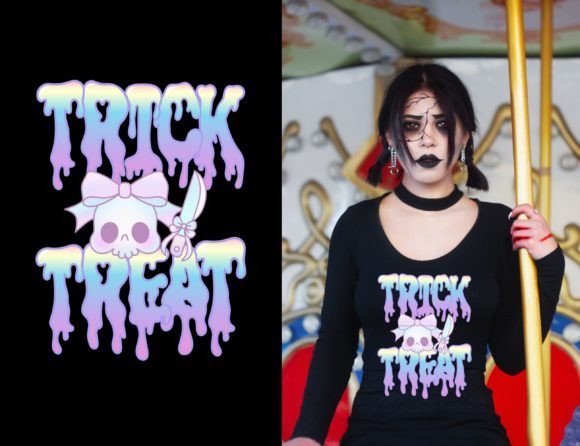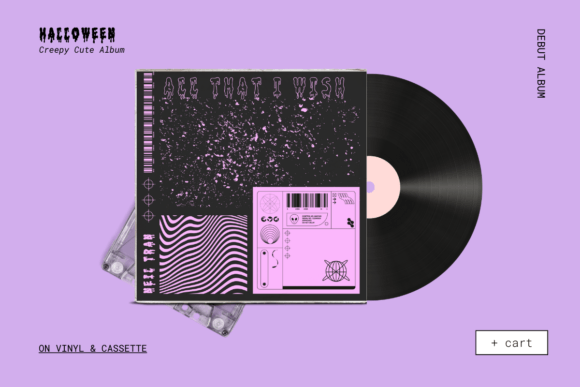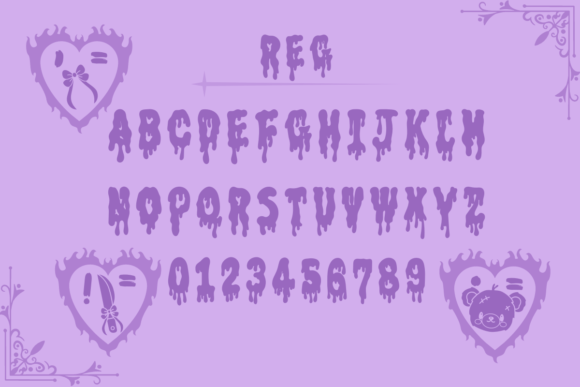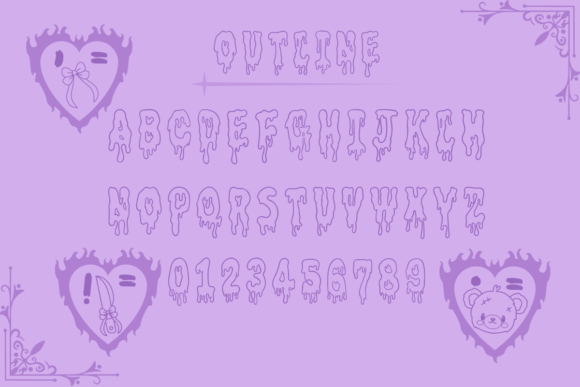
Pastel Font
Pastel is a spooky-cute dripping Halloween font that embraces the playful twist of pastel goth aesthetics. With its haunting dripping effect and the option to incorporate soft pastel colors, this font adds a unique and captivating touch to your designs.
It’s perfect for party invitations, flyers, and social media graphics, ensuring your Halloween-inspired projects stand out with a delightful blend of darkness and cuteness.